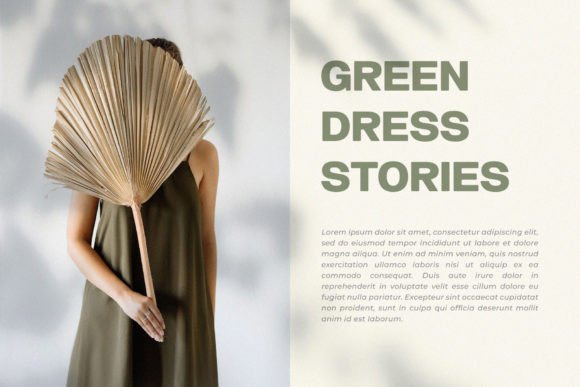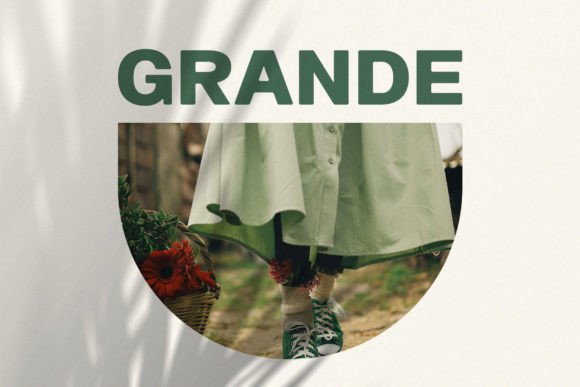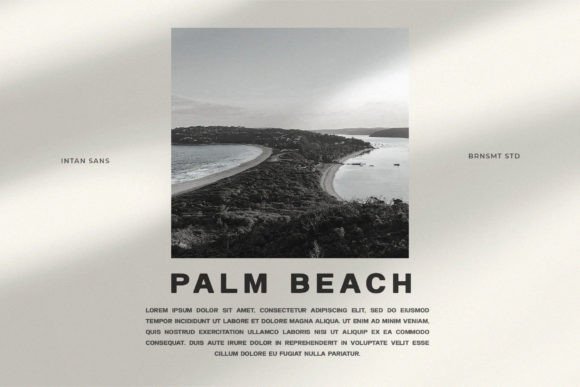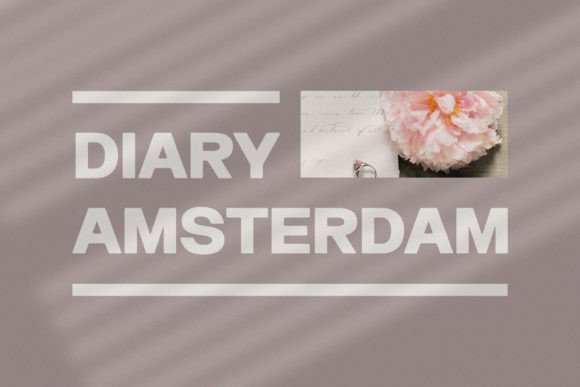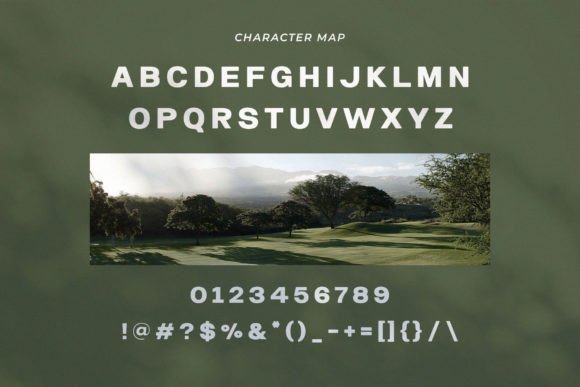
Introduction to Intan Font Font
Fonts play a crucial role in design, and the Intan Font font is a typeface that brings both character and versatility to any project. Whether you’re working on a branding project, a website, or a print design, the Intan Font font offers a unique style that can elevate your work.
Intan is a modern and classy sans serif font.
Add this beautiful sans serif font to each of your creative ideas and notice how it makes them stand out .
Key Features of Intan Font Font
Why Choose Intan Font Font?
The Intan Font font is more than just a typeface – it’s a design tool that helps you communicate your message with style and clarity. Its unique character set and versatile design make it suitable for a wide range of applications, from elegant invitations to bold headlines.
With its carefully crafted letterforms and balanced proportions, the Intan Font font ensures readability and visual appeal across all mediums.
What makes Intan Font font special?
The Intan Font font stands out with its unique design, exceptional readability, and versatility across various design applications.